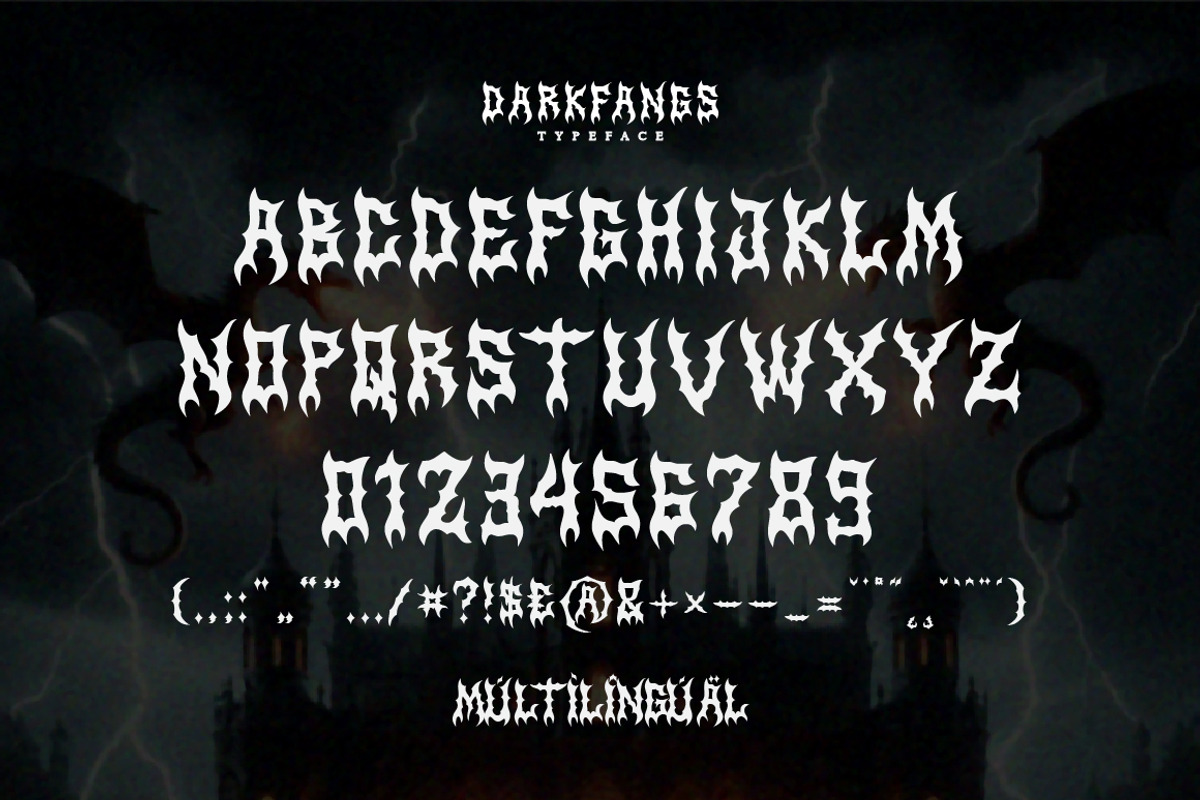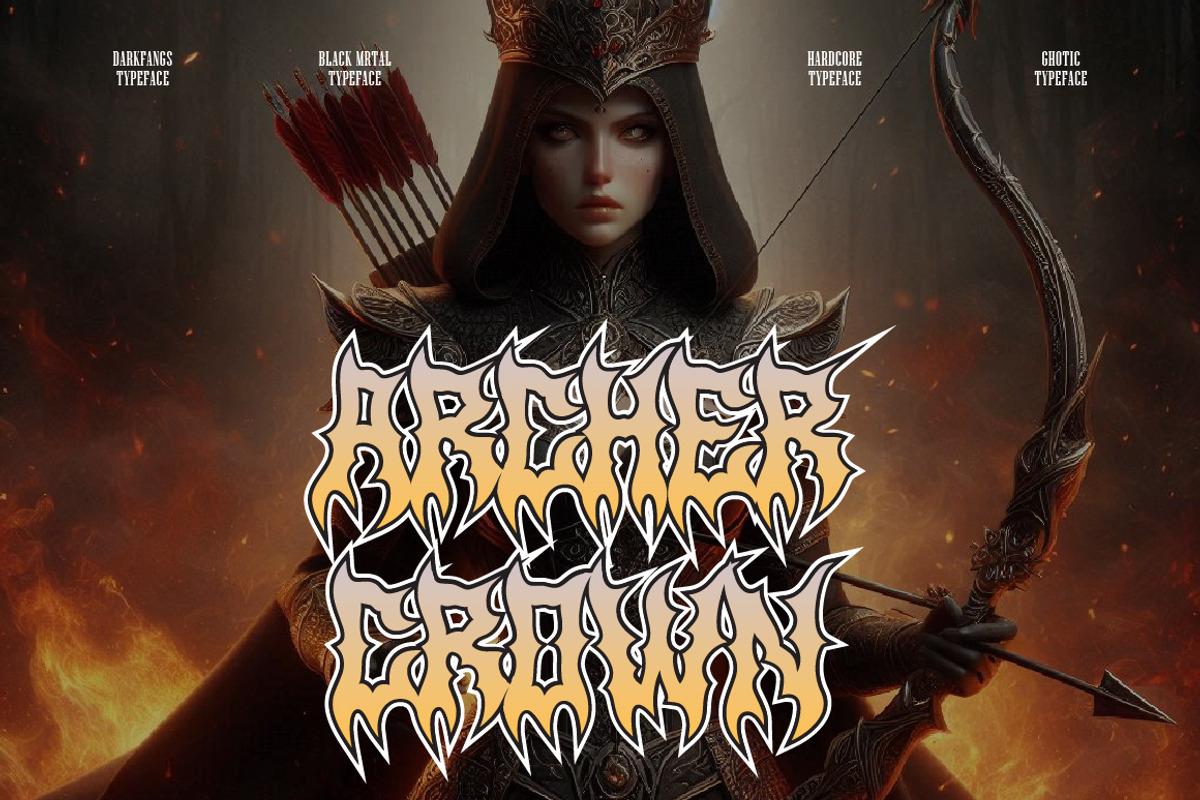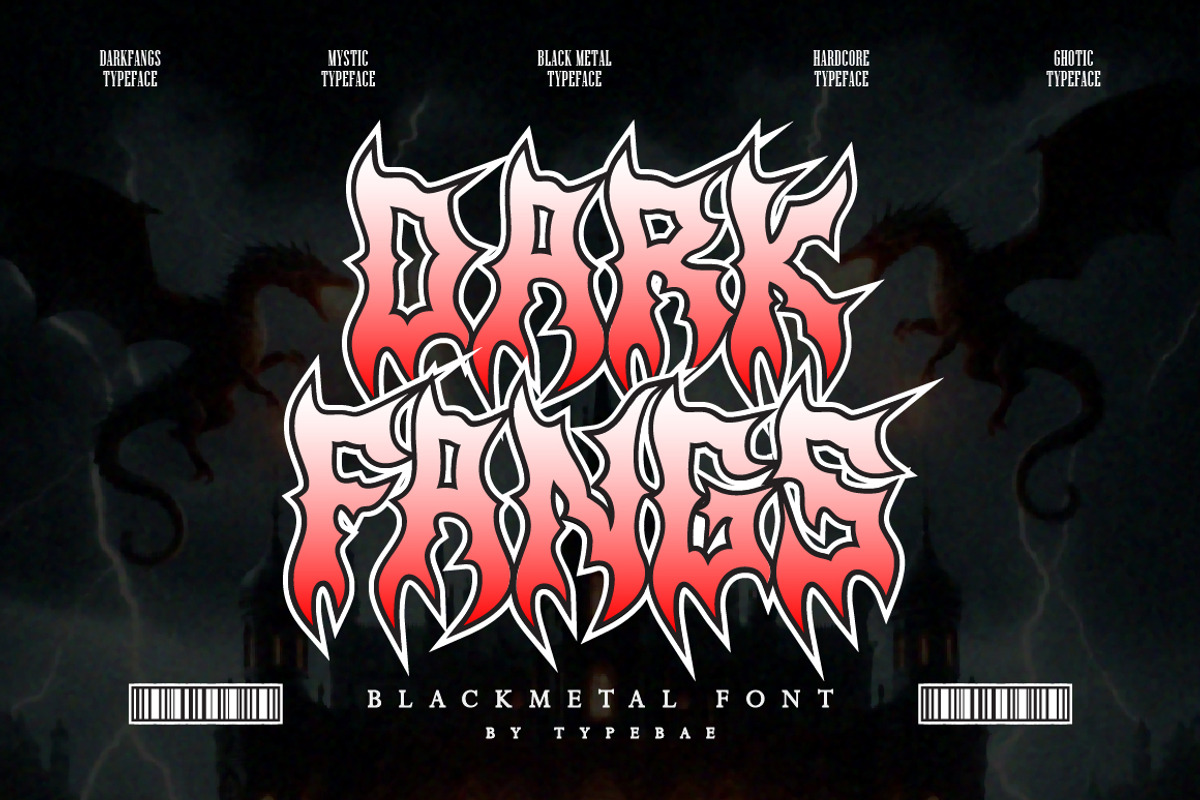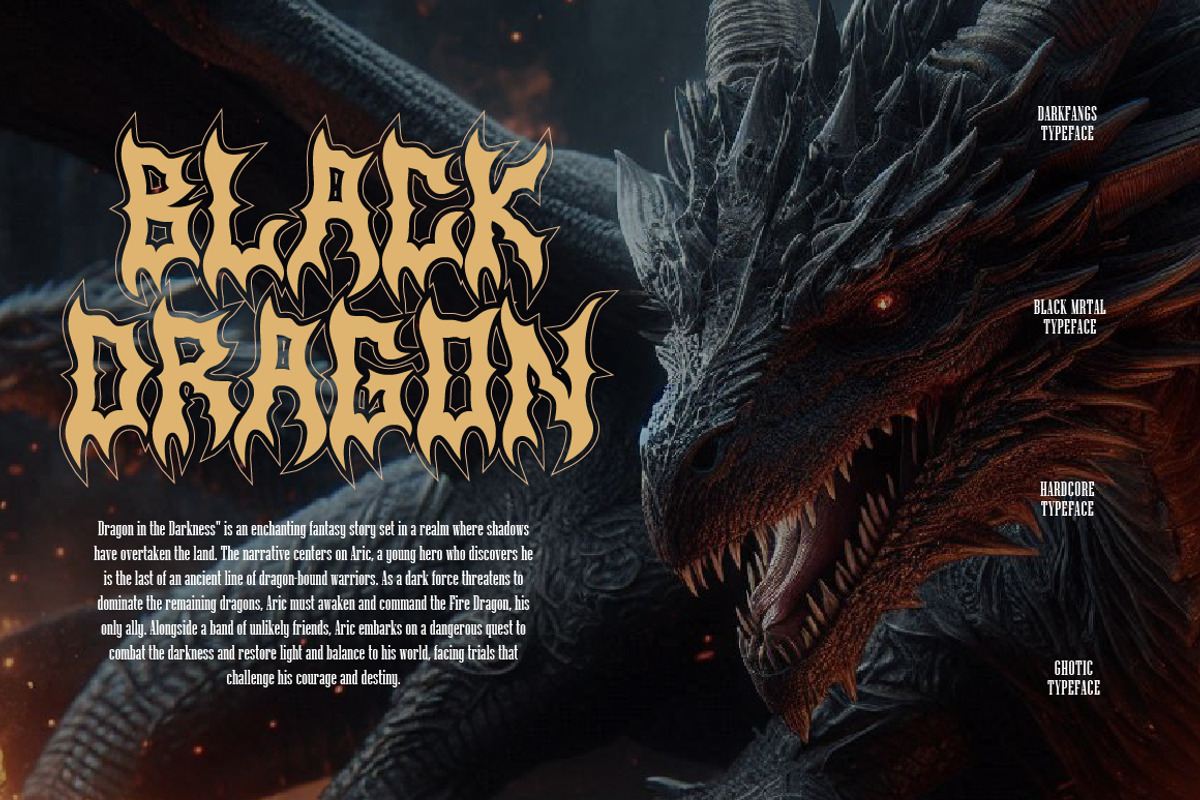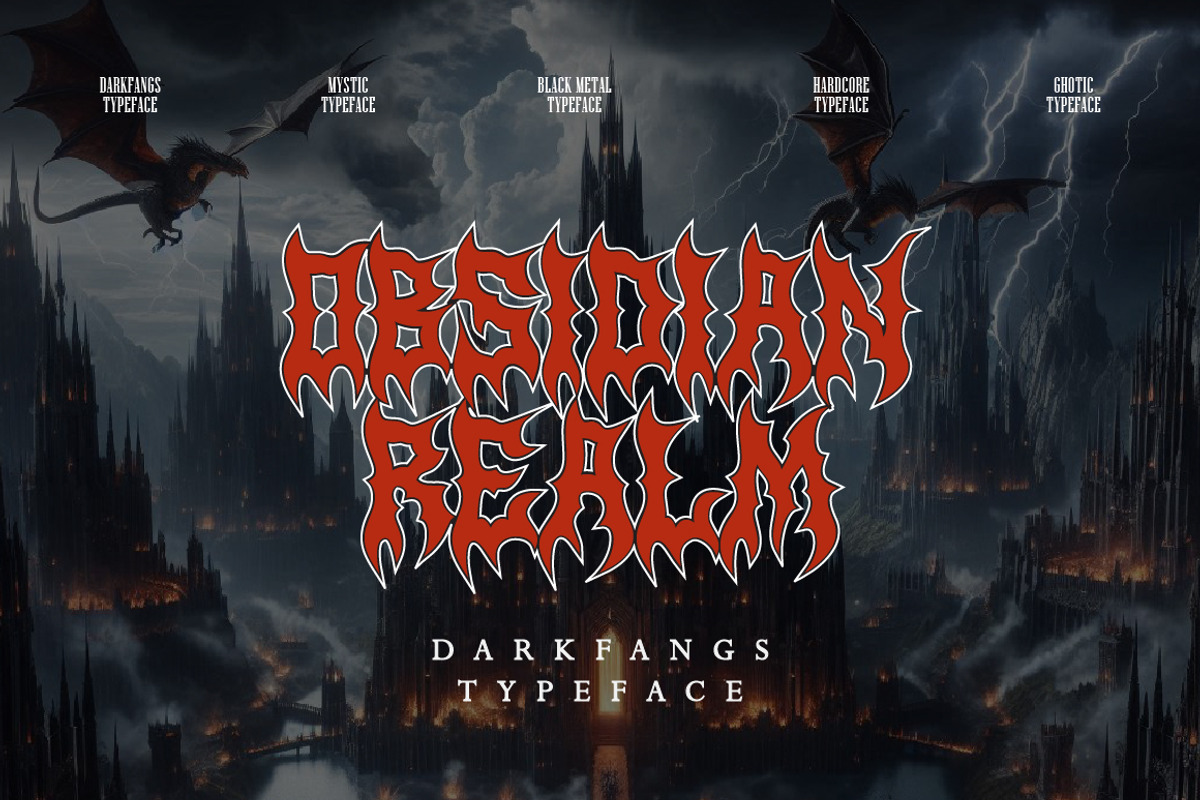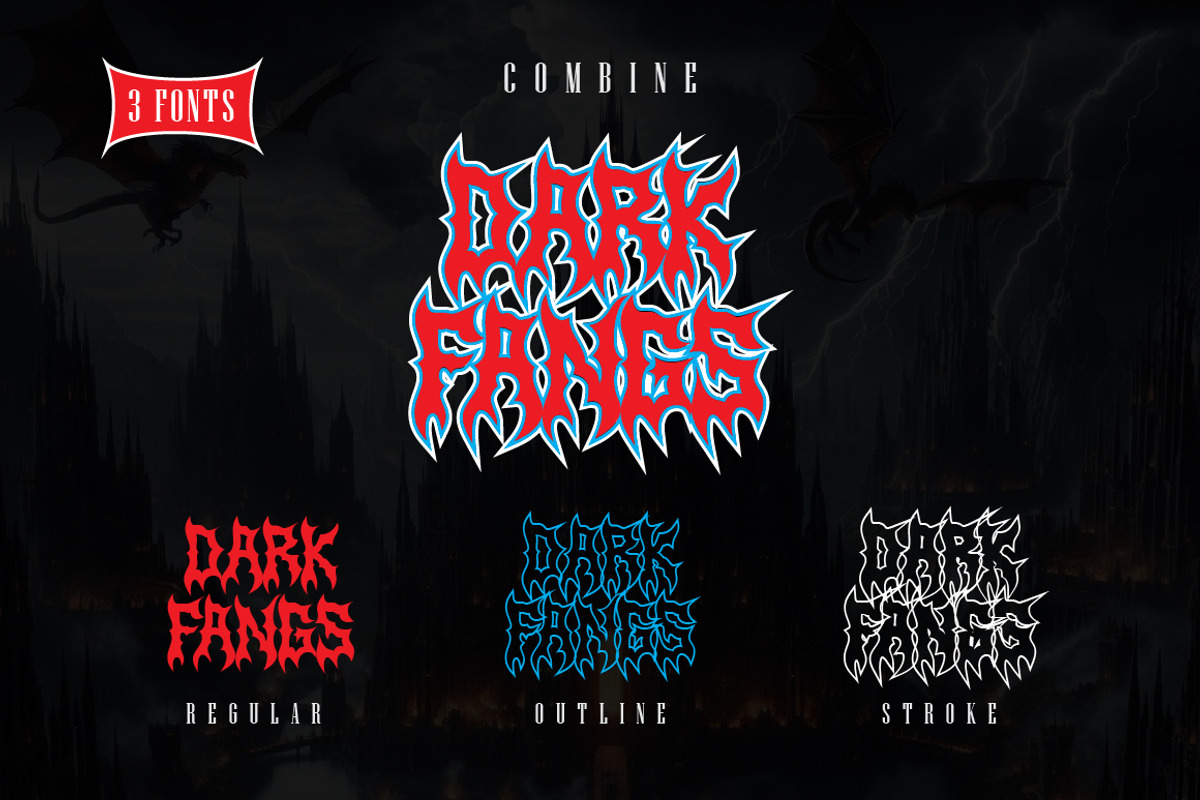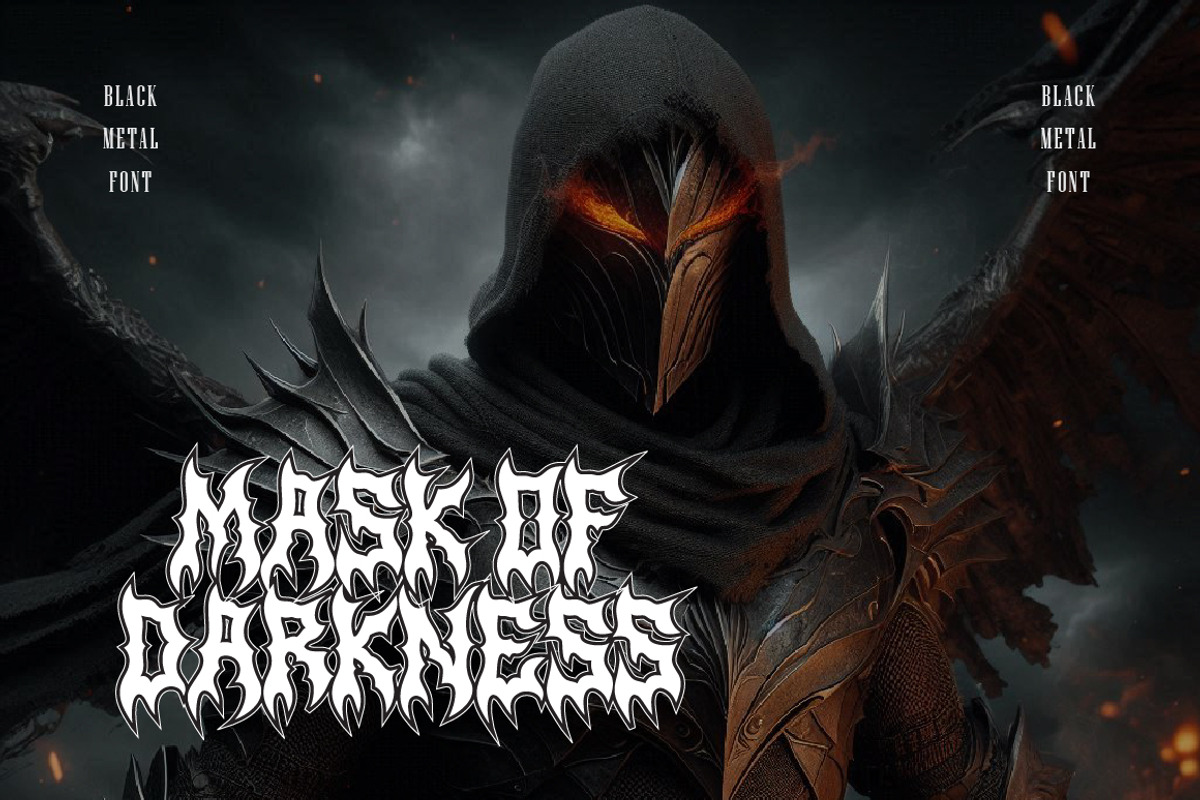
Darkfangs Blackmetal Font
Darkfangs is a gothic typeface that captures the dark intensity of black metal. With its sharp, modern design, it’s perfect for creating striking logos, band merchandise, and horror film posters, adding a bold, edgy flair to your projects.
- Regular, Outline & Stroke
- All Caps